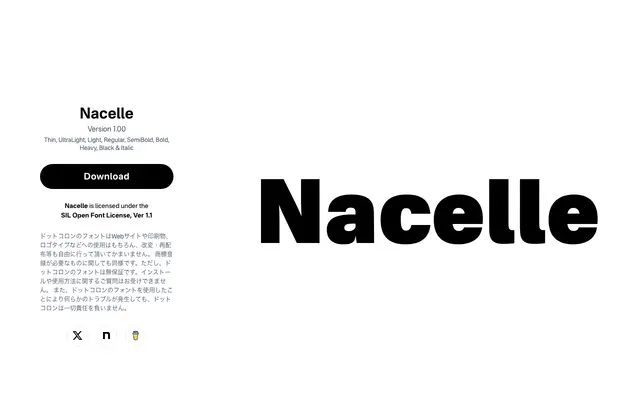
Nacelle
A revised neo-grotesque sans derived from Aileron, refined for improved UI legibility and naturalness across eight weights with italics.
Nacelle reworks Dot Colon's earlier Aileron, retaining its core aim of a readable, distinguishable neo-grotesque for UI contexts while adjusting metrics and fine details throughout. Eight weights run from Thin to Black, each with a matching italic, making it a practical free option for screen-focused work. Released under the SIL Open Font License, it permits modification and redistribution including commercial use.
The foundry explicitly describes Nacelle as a neo-grotesque sans-serif, revised from their earlier Aileron typeface with improved metrics and details for UI legibility.